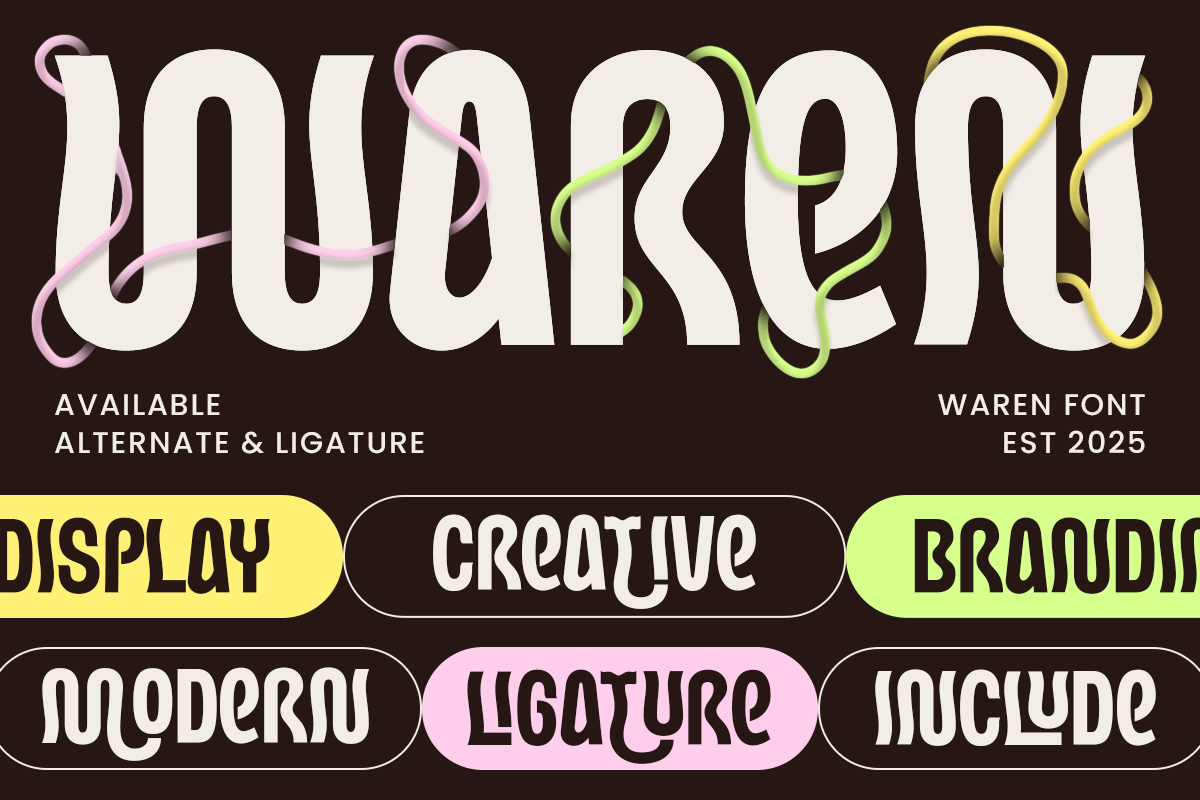
Waren
-Display Creative Condensed Branding FontWaren - Display Creative Condensed Branding Font
WAREN is a display creative branding font designed to give your projects a bold and distinctive identity. With its strong and stylish letterforms, WAREN is perfect for logos, packaging, posters, and brand identities that need to stand out with creativity and impact.
Its clean structure and modern aesthetic make it versatile for a wide range of applications, from startup branding to editorial headlines. Whether for digital or print use, WAREN ensures your designs leave a lasting impression.
WAREN – Display Creative Branding Font Features
Bold display style for impactful designs
Perfect for logos, packaging, posters, and brand identity
Versatile and stylish design for modern projects
OpenType features for advanced typographic flexibility